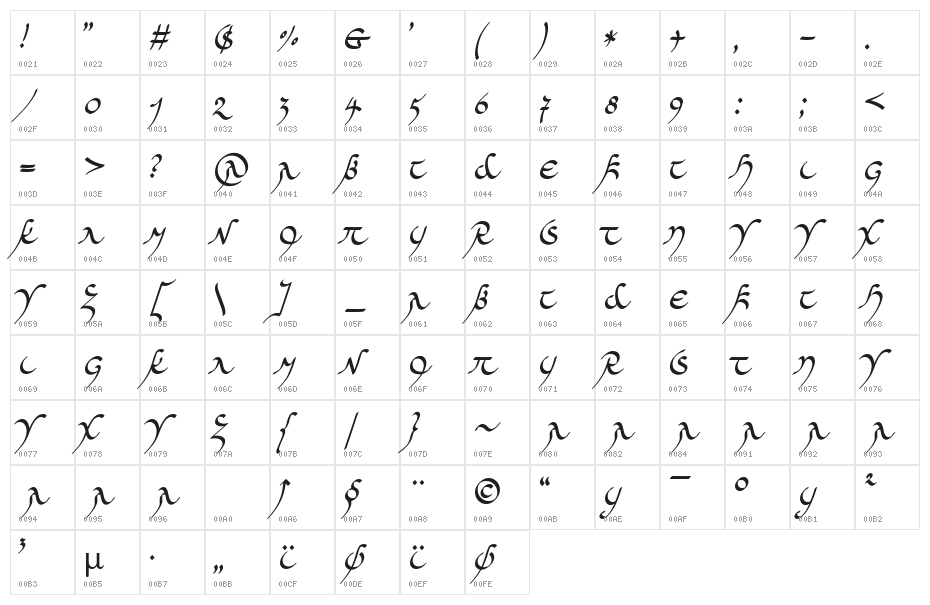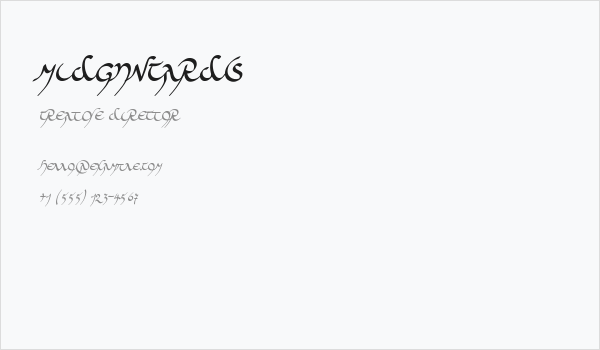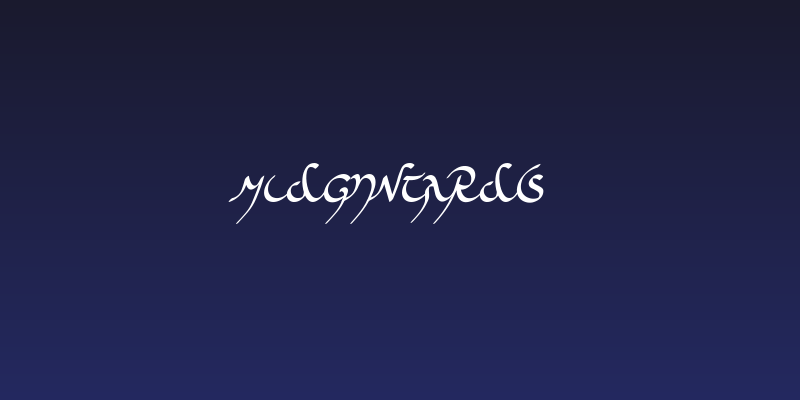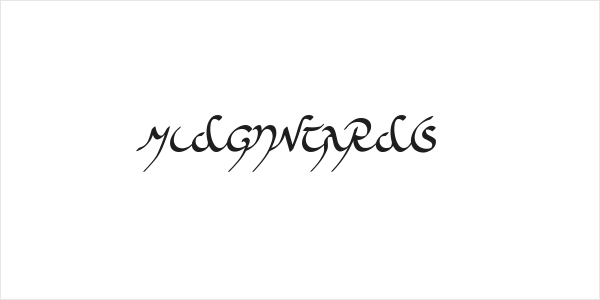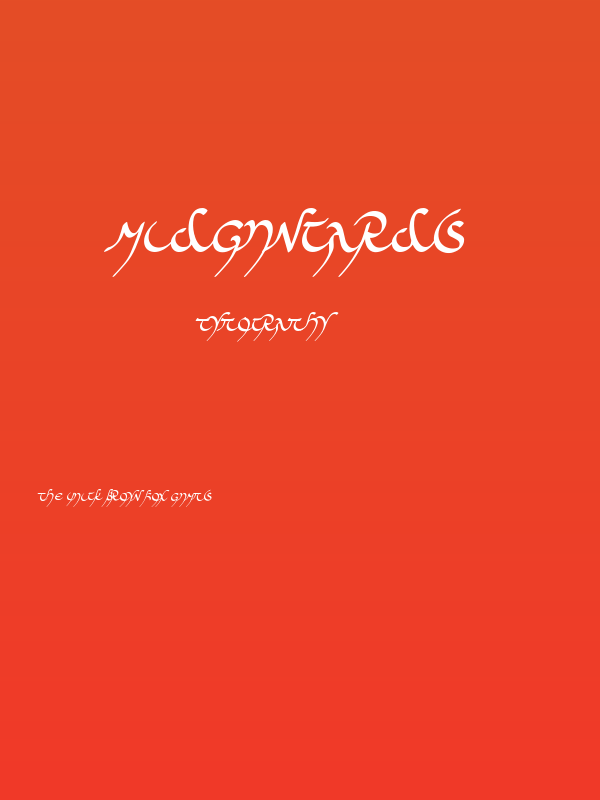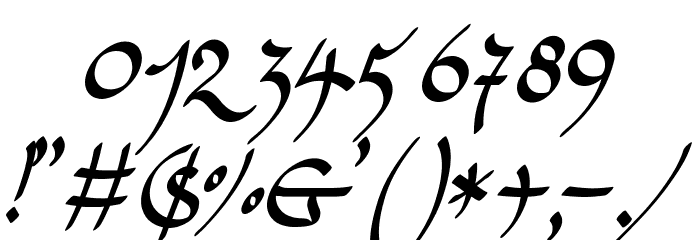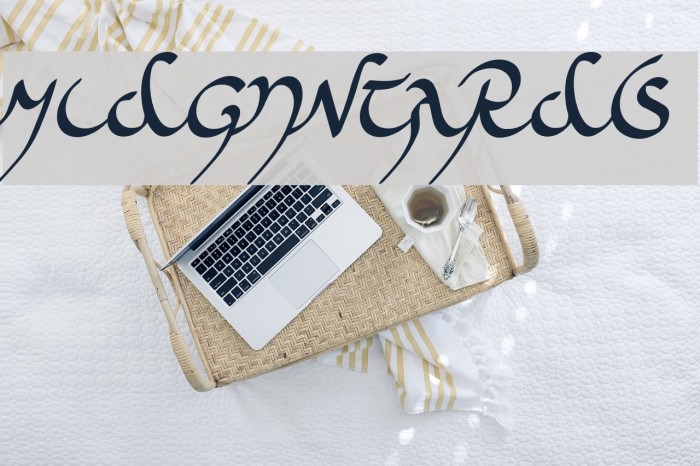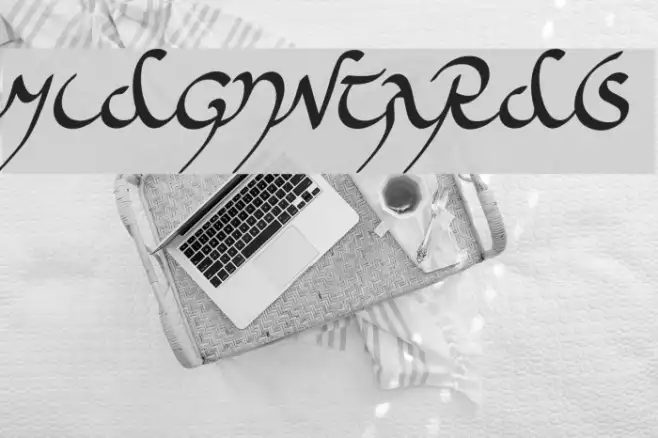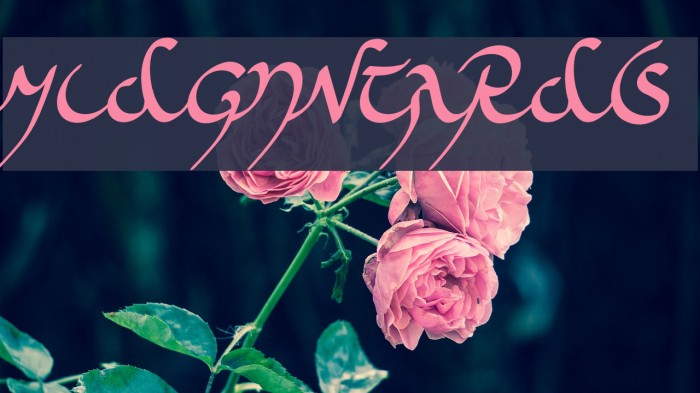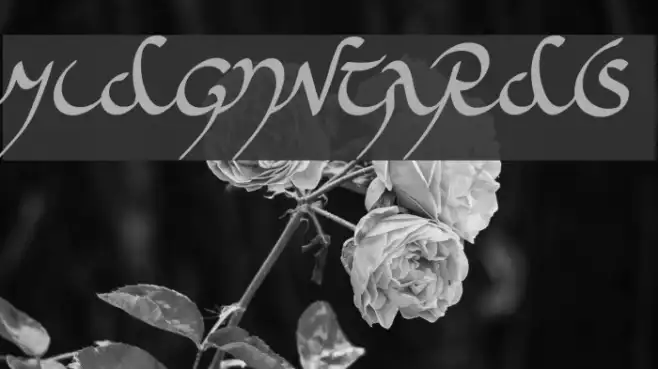
Midjungards Font
Midjungards Description
This font features a unique blend of calligraphic elegance and modern design. The characters are crafted with flowing, cursive strokes that give a sense of movement and fluidity. The uppercase letters are bold and dramatic, while the lowercase letters maintain a consistent style with slightly more subtle curves. The numerals are distinct and maintain the same artistic flair, ensuring readability while adding a decorative touch. Special characters are creatively designed, matching the overall aesthetic. This font is ideal for projects that require a touch of sophistication and artistic expression.
| Proposed Projects | Ideal for wedding invitations, artistic branding, elegant posters, and creative logos. |